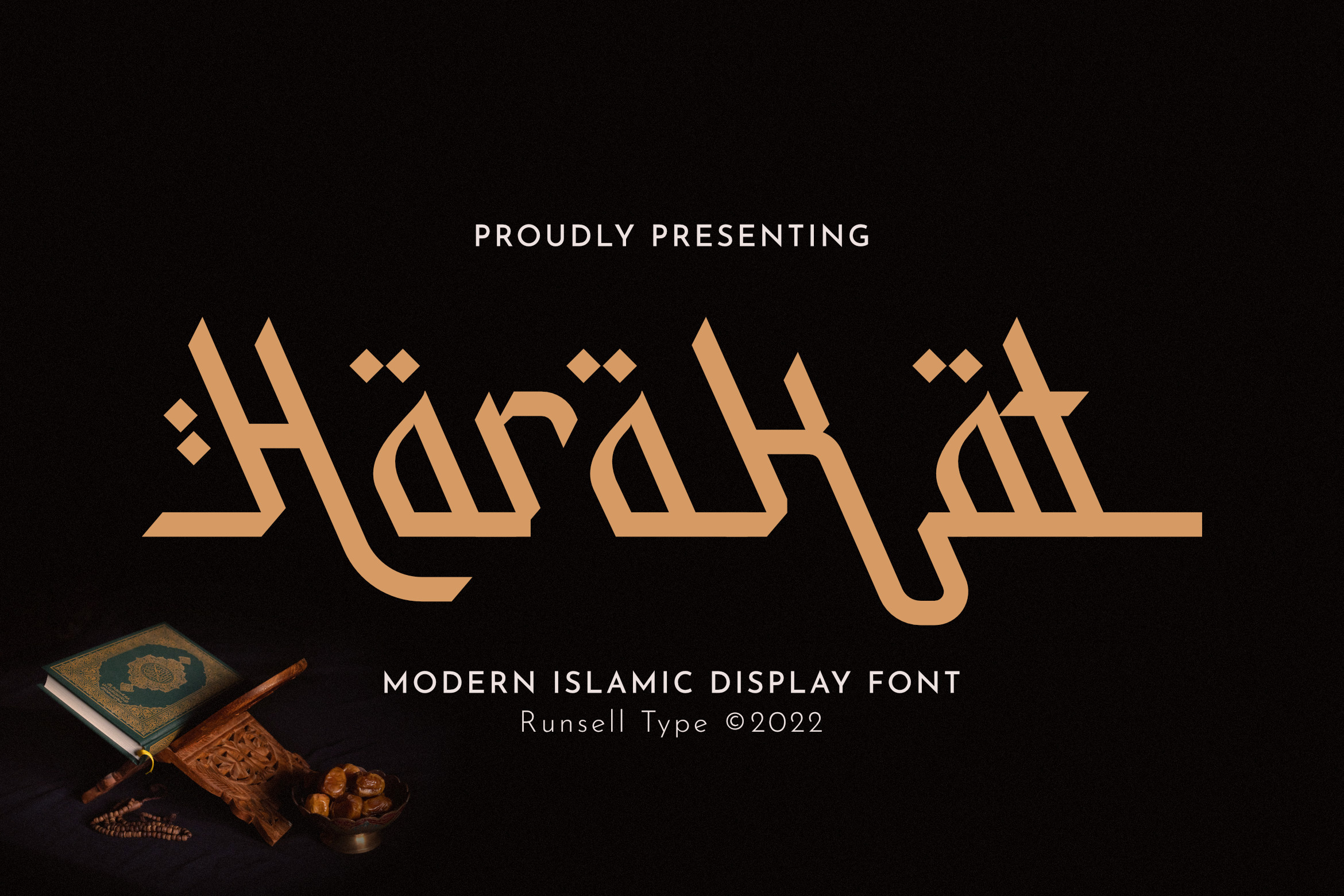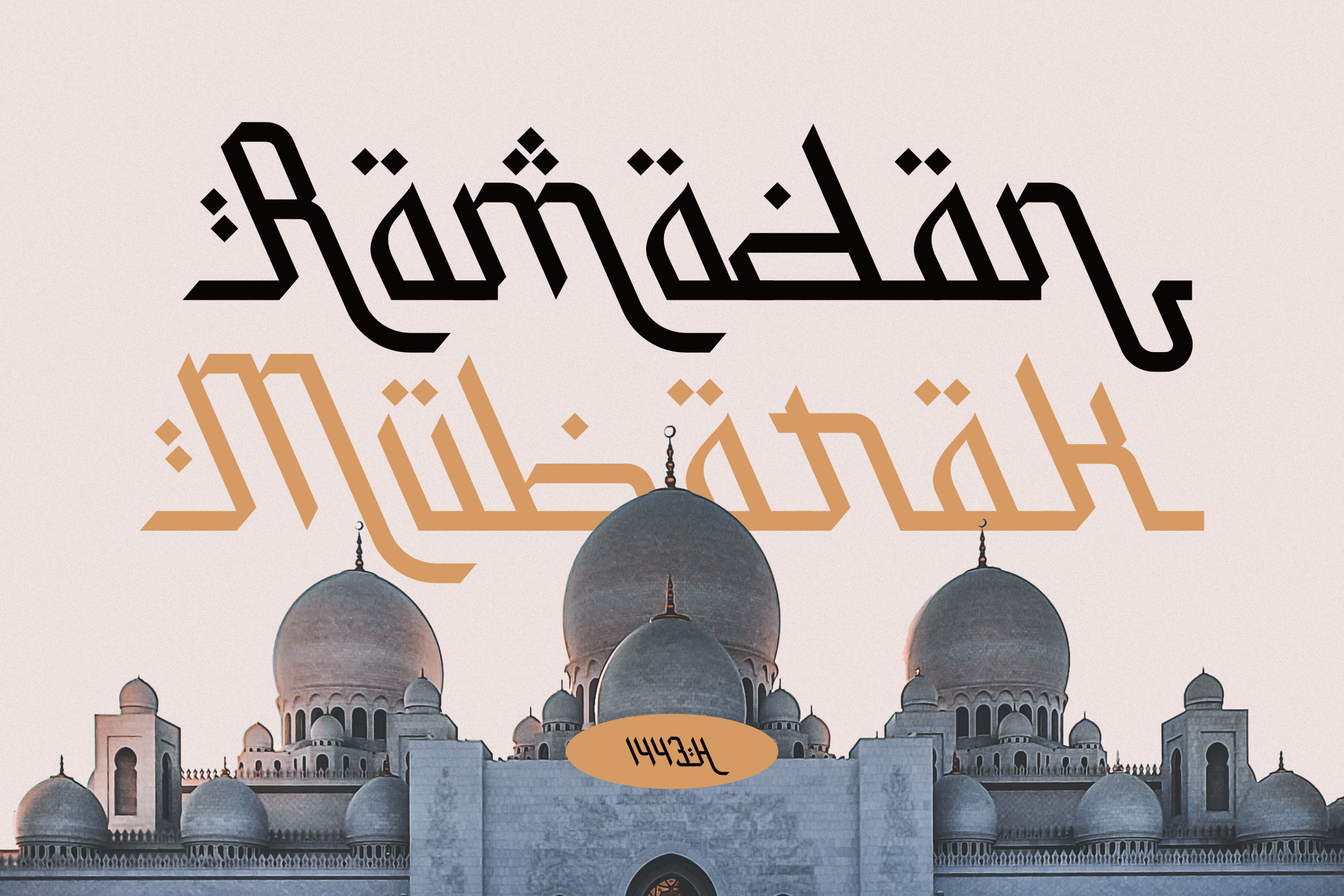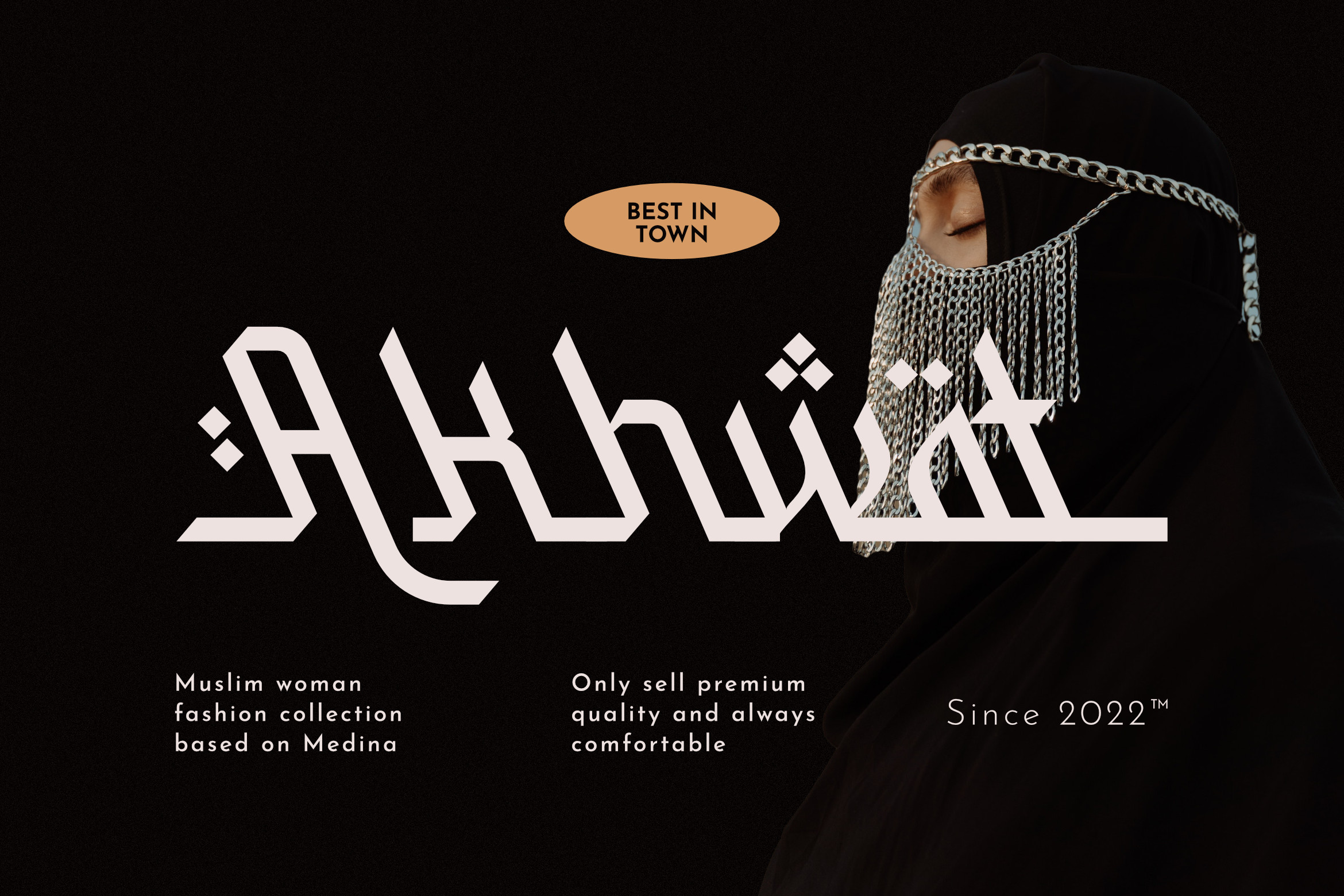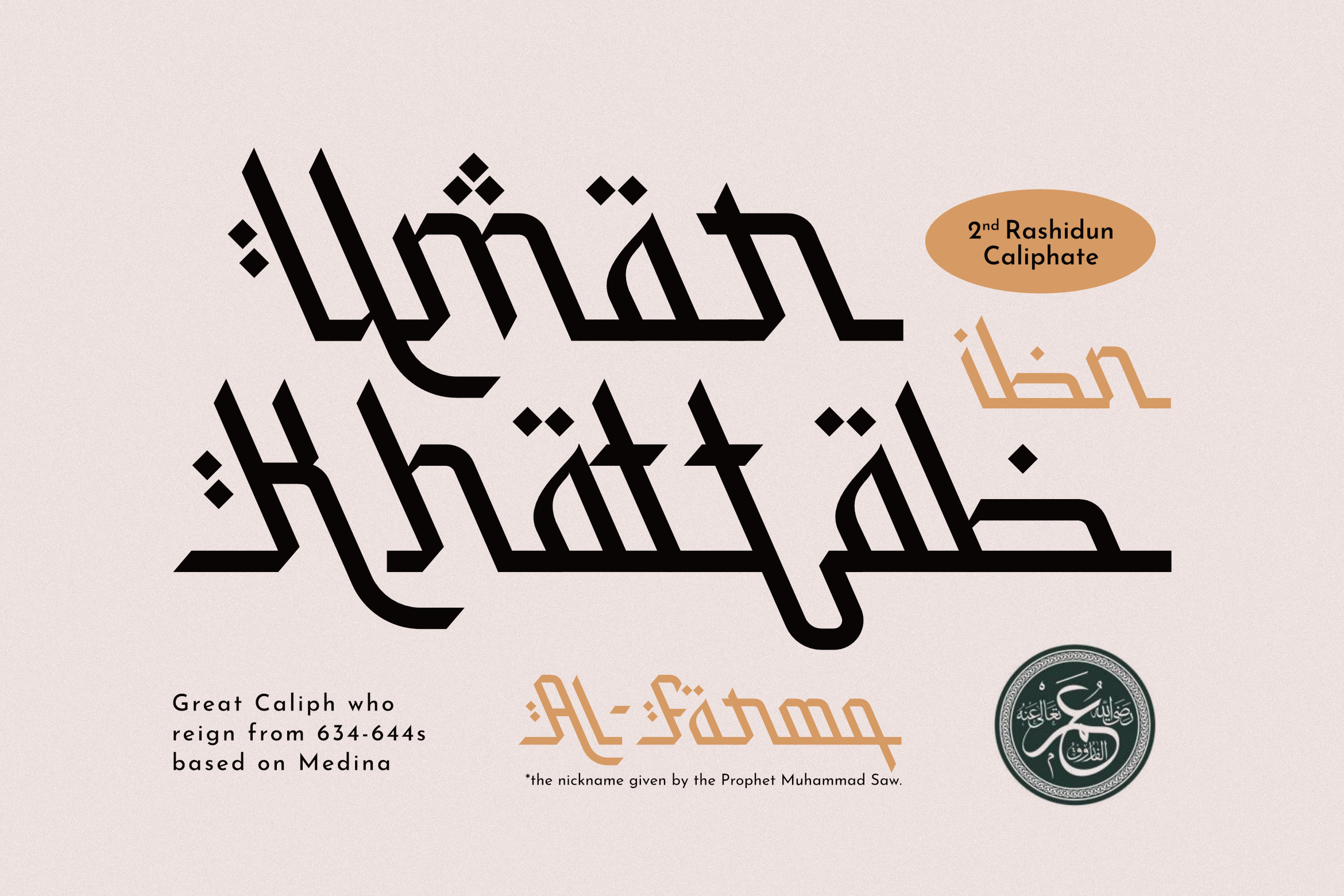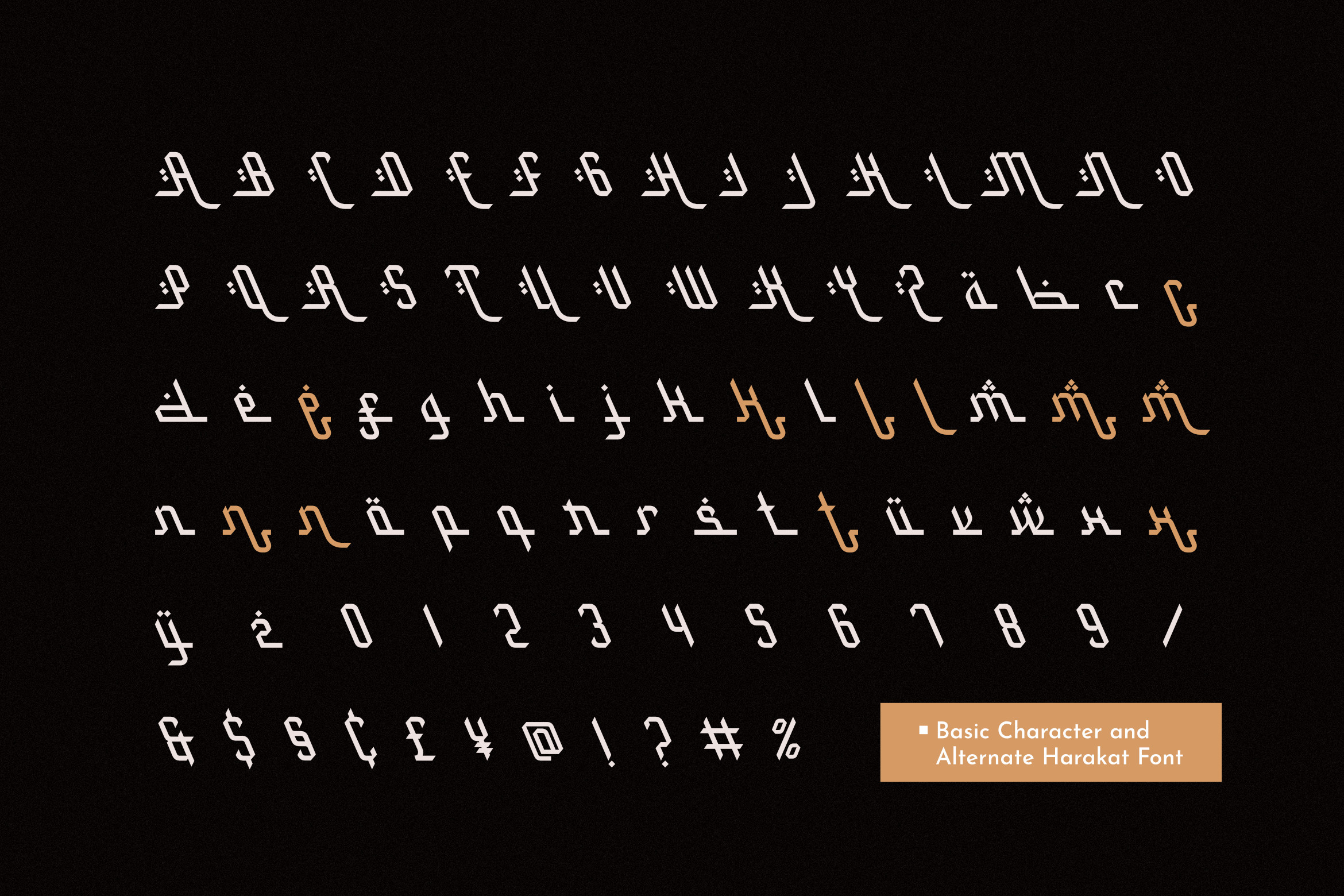
Harakat is a modern Islamic display font that merges Kufic-inspired angular forms with a structured Latin script approach. Its bold, geometric shapes are accented by diacritic-style dots and minimalist ornamental strokes, making it highly suitable for religious themes, Middle Eastern brands, or typographic statements for Ramadan and Islamic art. Each character carries a sense of rhythm and rigidity, reflecting traditional calligraphy with a distinctly modern typographic voice.
Designed with stylistic alternates and decorative variants, Harakat works perfectly for branding, logos, posters, and editorial headlines. The uppercase forms exude strength, while the lowercase and alternate characters add cultural flair and visual interest. Harakat’s unique presence makes it a powerful choice for creative projects rooted in heritage, culture, and identity.